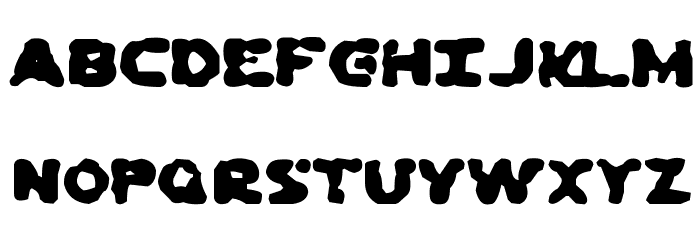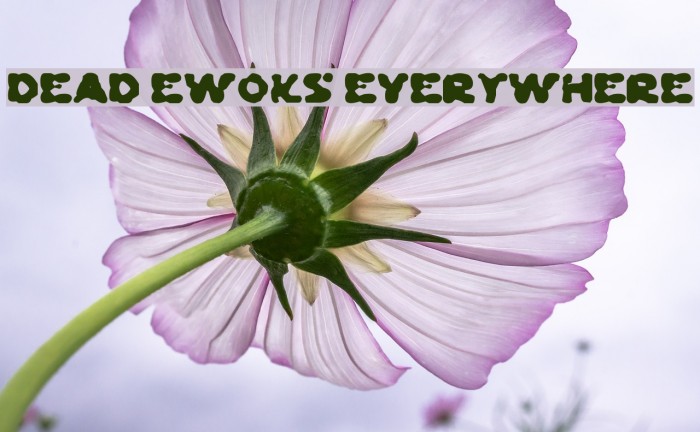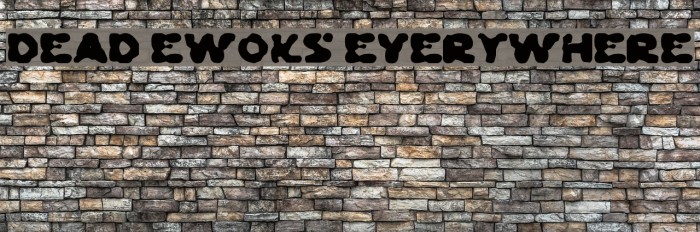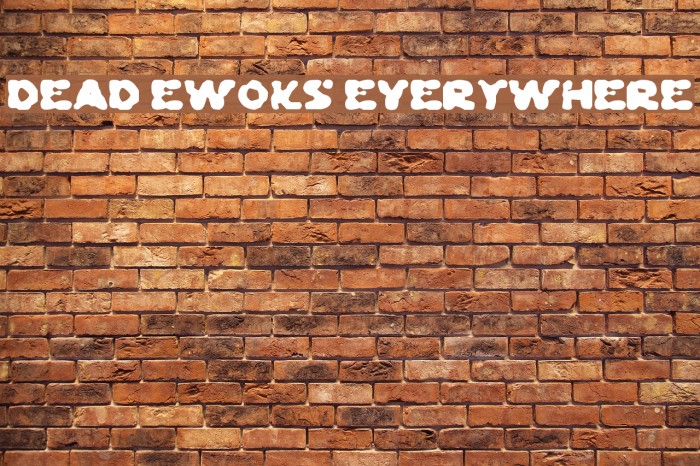
Dead Ewoks Everywhere Font
This font features a playful and bold design with a quirky, irregular shape that gives it a unique, hand-drawn appearance. The characters are thick and rounded, with uneven edges that add a whimsical and informal touch. The uppercase letters are consistent in height, while the lowercase letters maintain a similar style, creating a cohesive look. The font's boldness and distinctive style make it stand out, ideal for creative and fun projects. Its irregularity and bold strokes suggest a sense of movement and energy, making it suitable for eye-catching designs.
A bold, playful font with a hand-drawn, irregular style.
- Proposed Projects: Ideal for children's books, comic strips, playful branding, and creative posters.
- Overall Style: Playful, Quirky